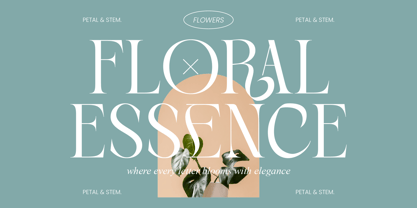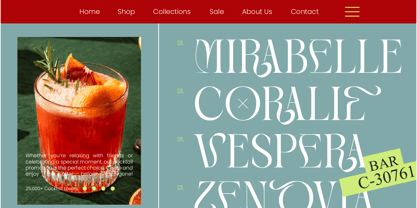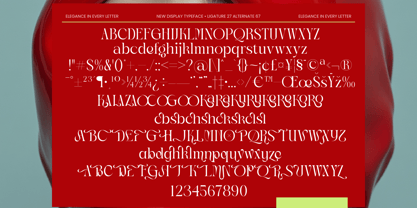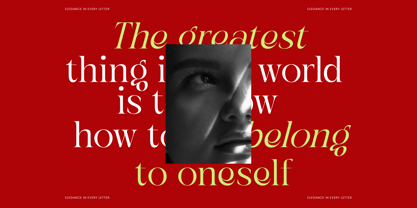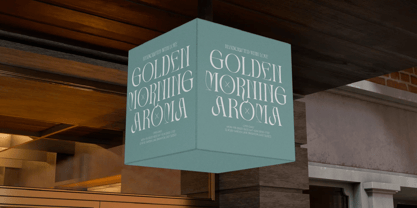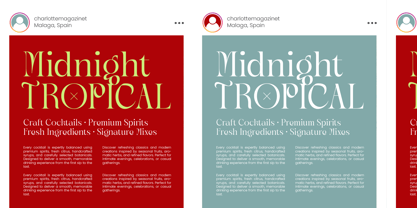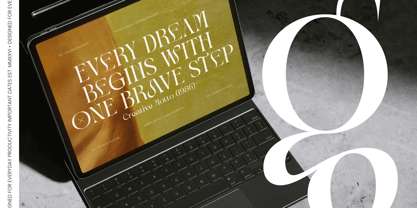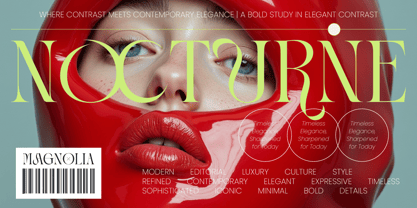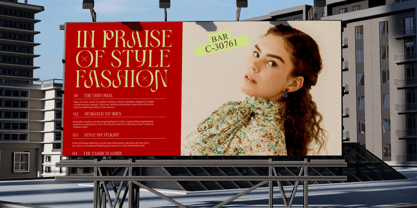
Magnolia Nocturne
by Timelesstype Studio
The Magnolia Nocturne Font Family was designed by Heru Utama Putra and published by Timelesstype Studio. Magnolia Nocturne contains 2 styles and family package options. More about this family
Magnolia Nocturne is a masterclass in modern sophistication, blending razor-sharp contrast with fluid, avant-garde elegance. It is designed to command attention on any page, transforming standard layouts into high-end editorial statements.
Drawing inspiration from the nocturnal beauty of high-fashion runways and the sleek aesthetic of luxury glossies, this typeface captures a spirit of mystery and refinement. Every curve and stroke reflects a balance between classical structure and contemporary rebellion.
This modern serif display is engineered for maximum luxury typography appeal, offering a high-contrast serif look that feels both timeless and futuristic. As an editorial font, it provides a high-end branding impact that resonates with audiences seeking exclusivity and polished style.